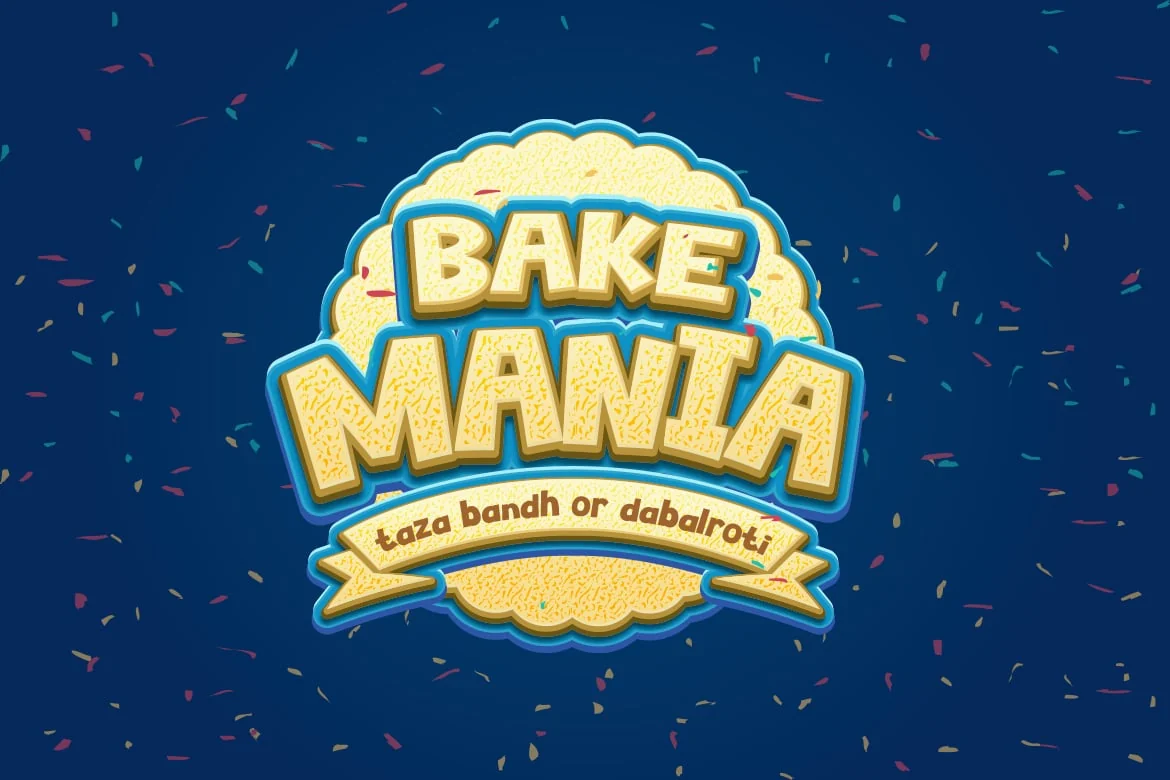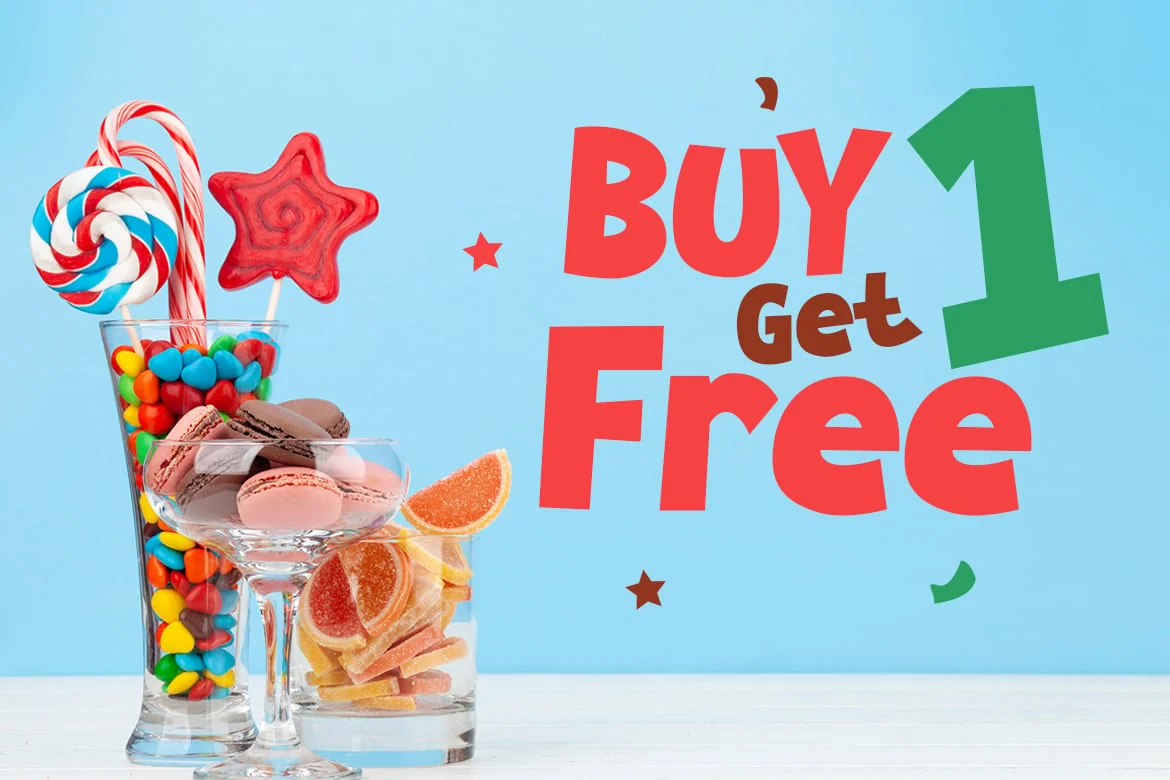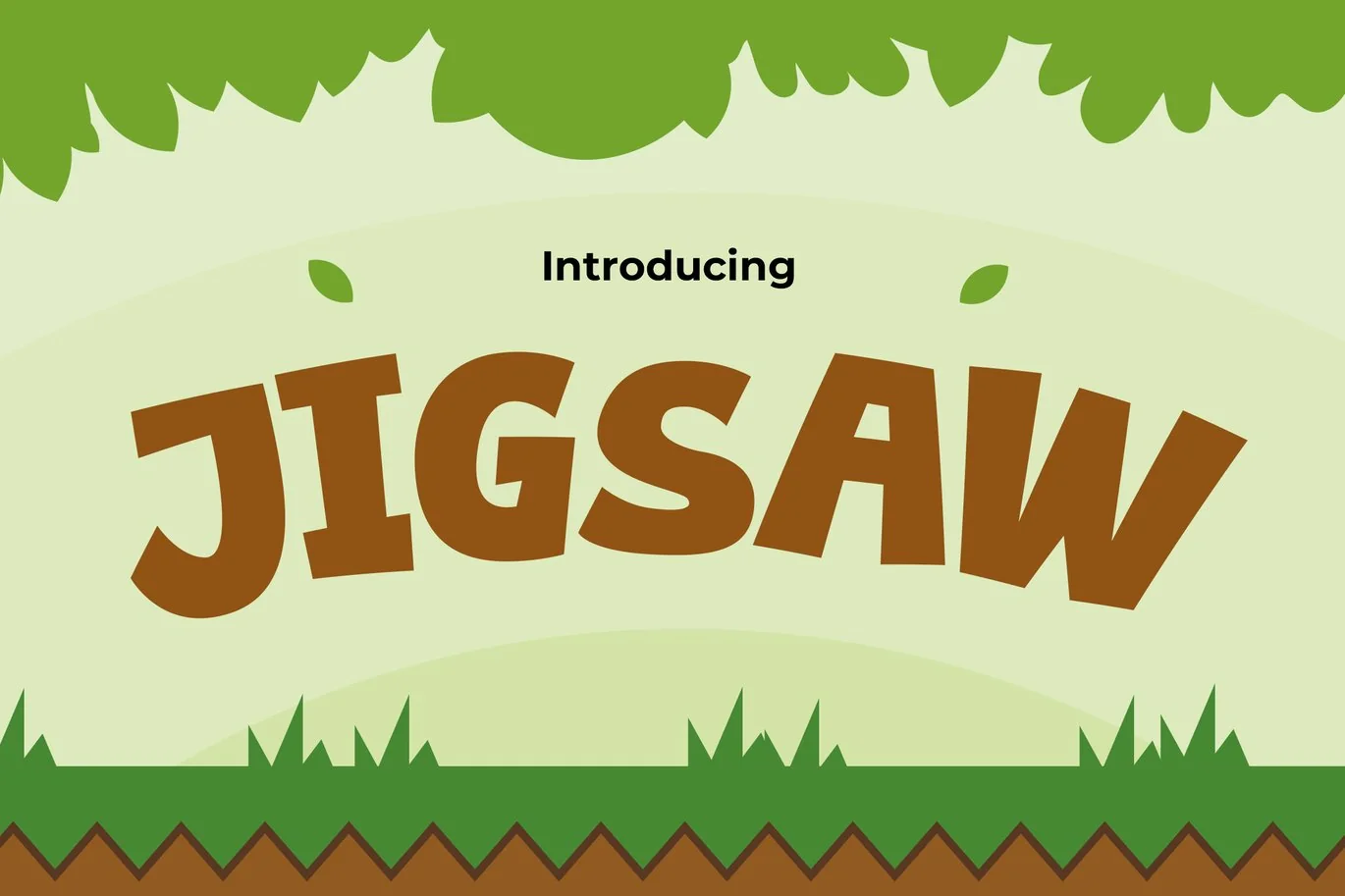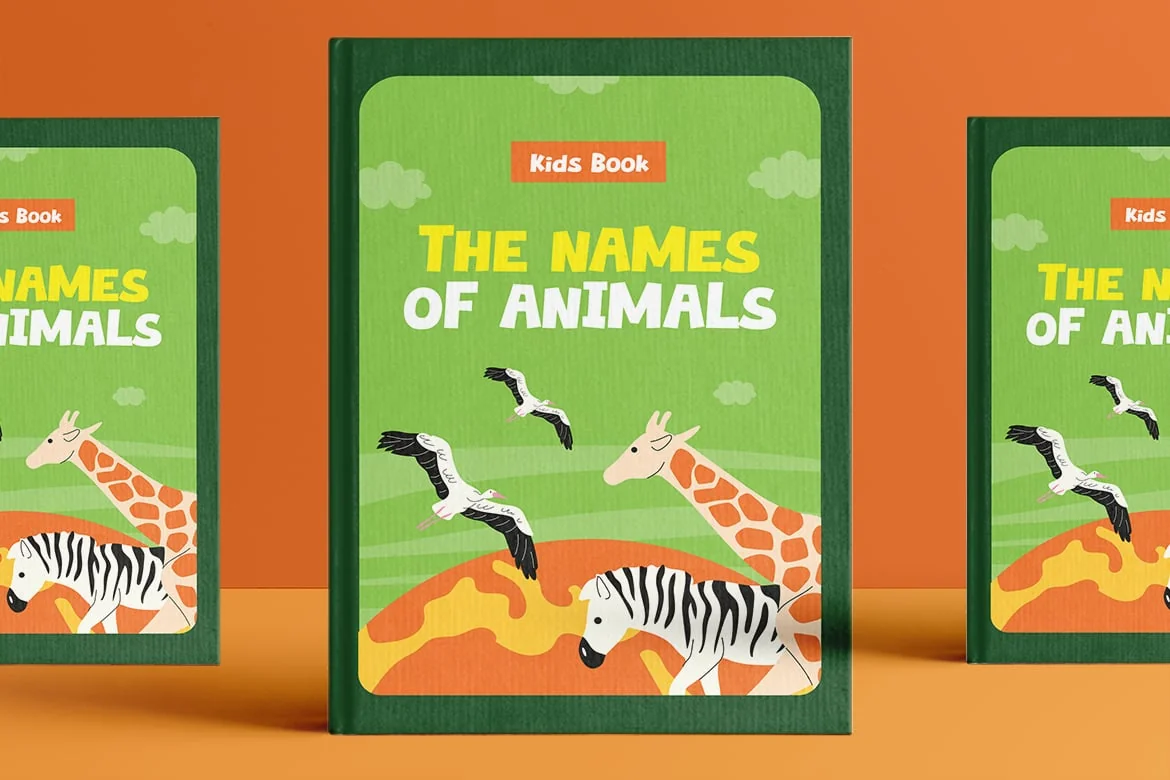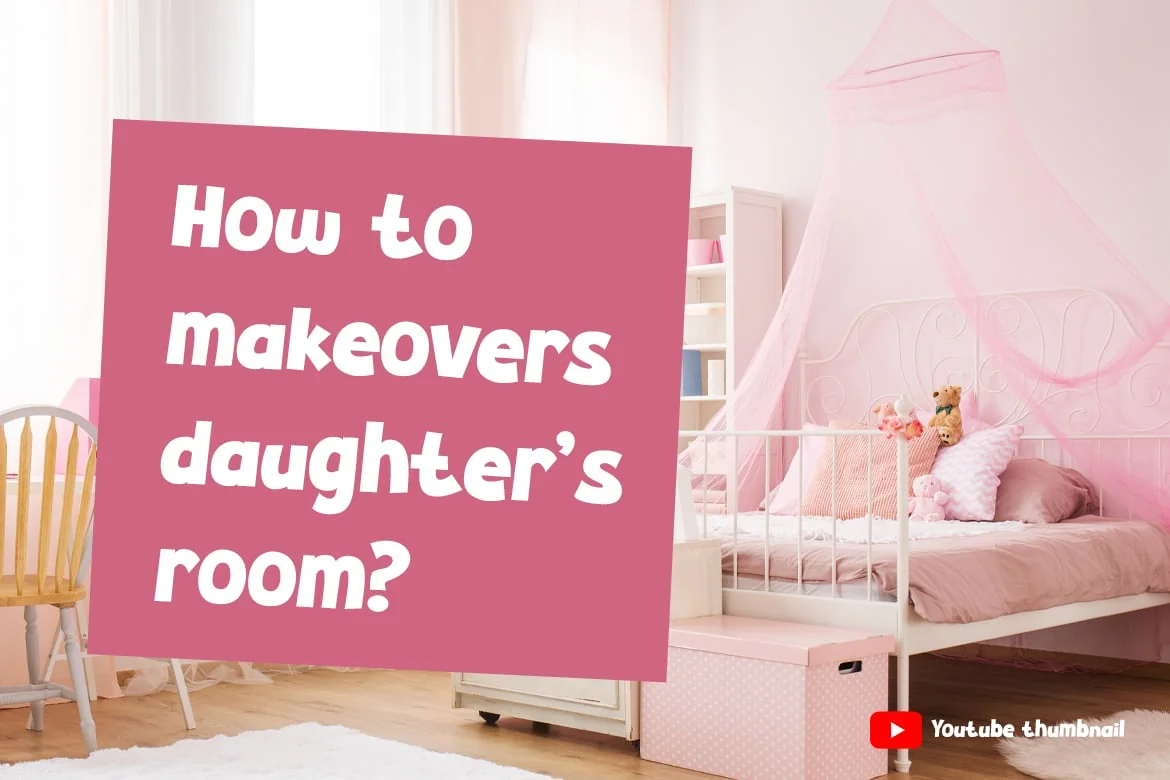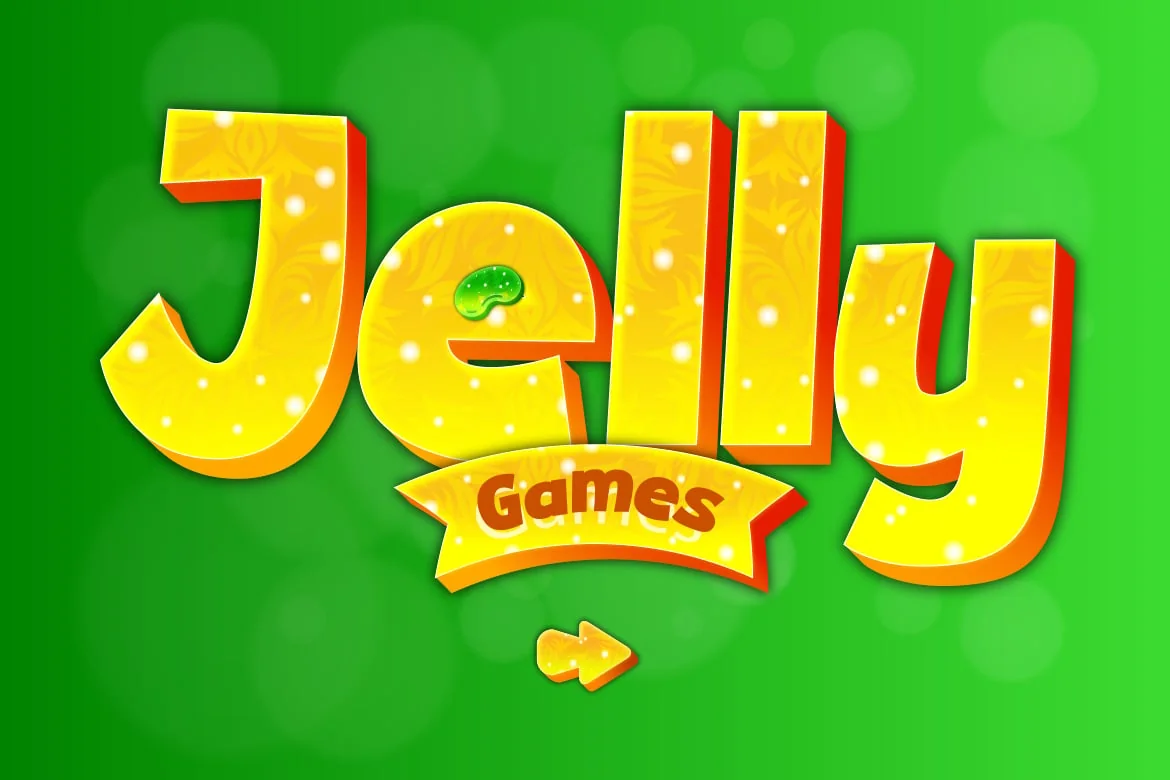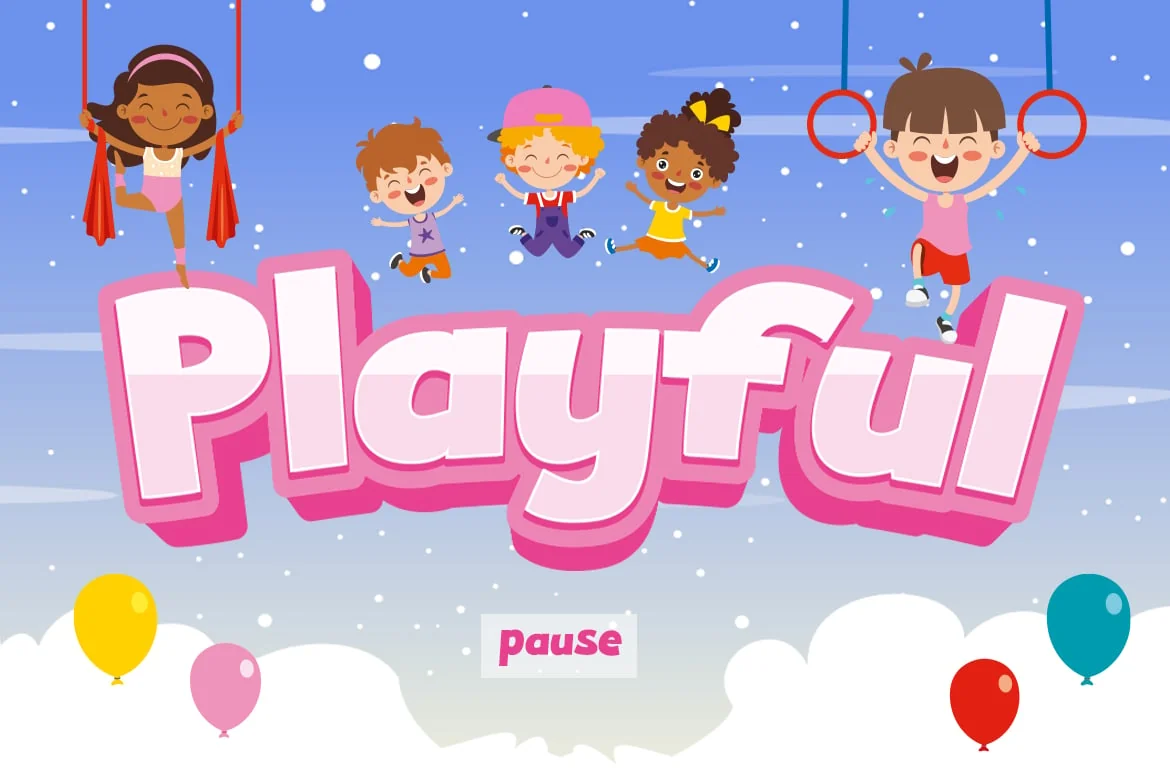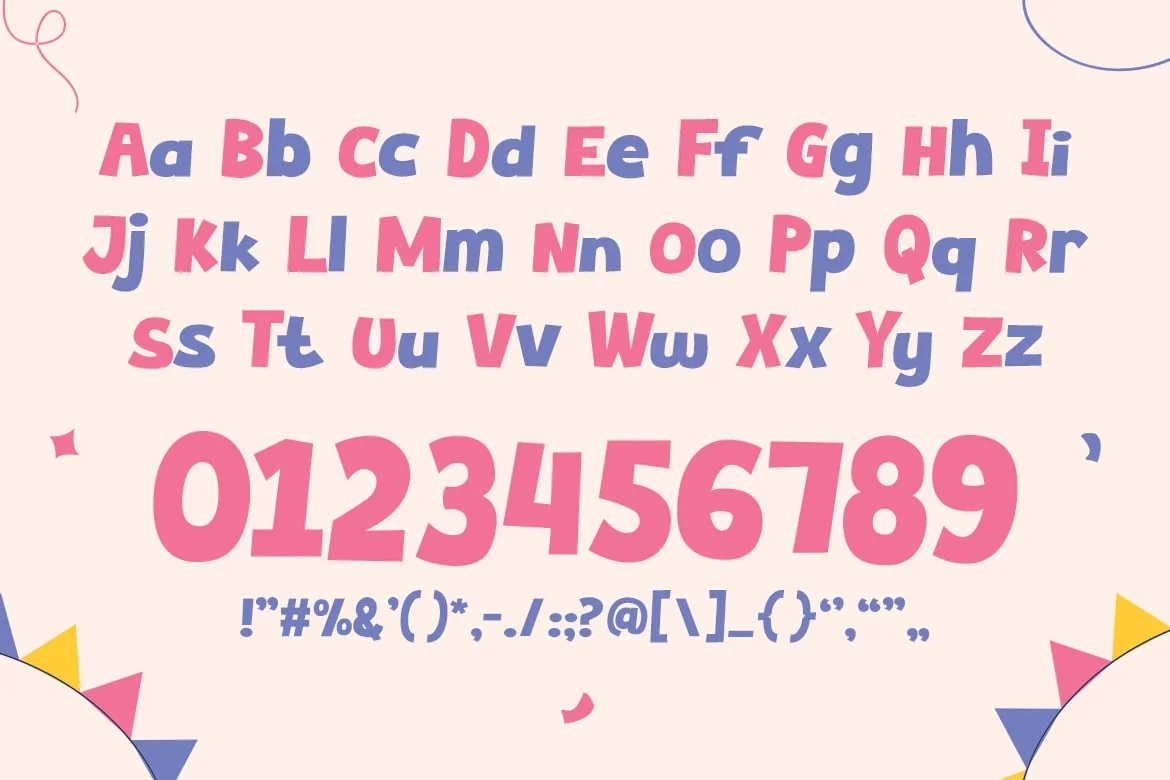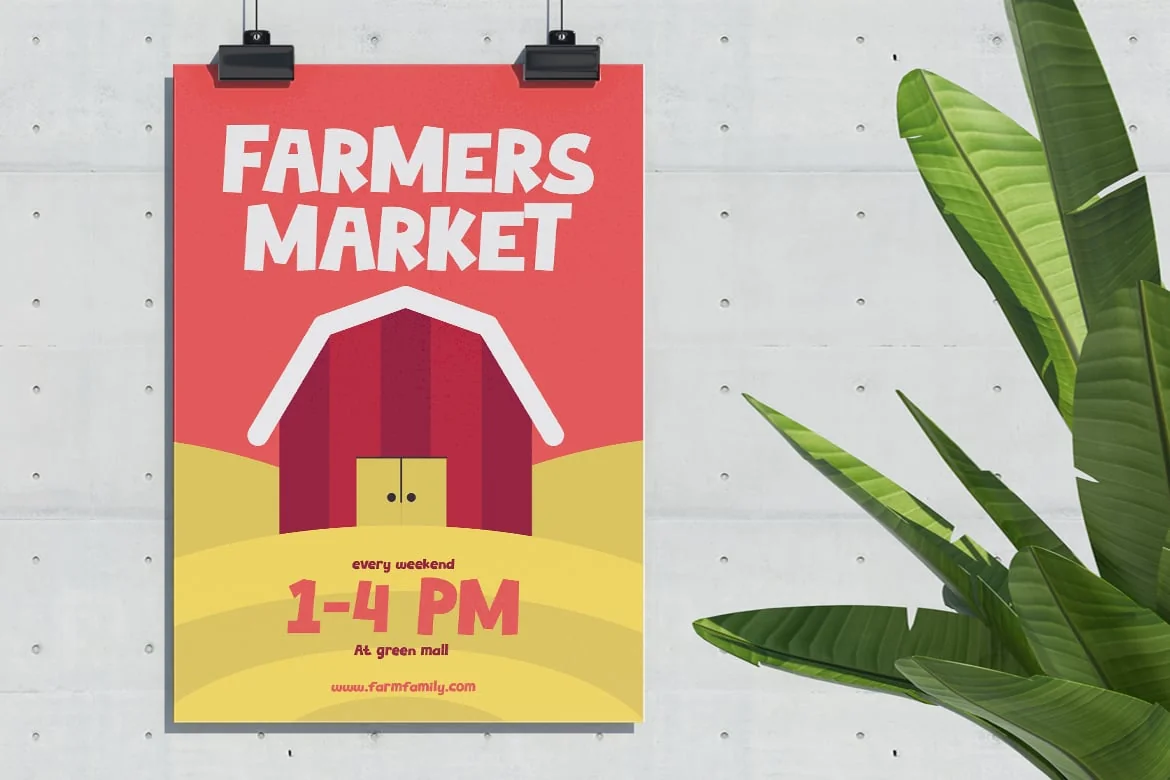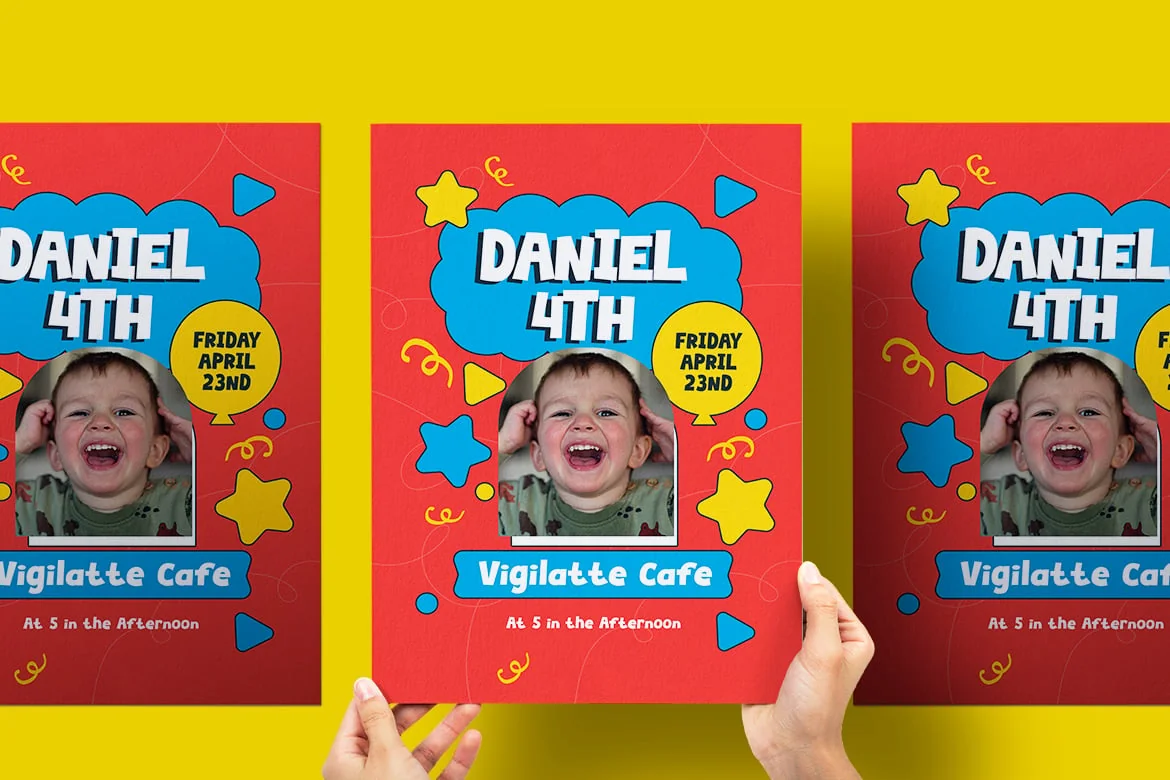
Cartoon Font – Jigsaw
Jigsaw – Funny Font Adventure for Kids
Introducing “Jigsaw,” the delightful font that adds a playful twist to any kids’ project. With its whimsical shapes and cheerful demeanor, “Jigsaw” is designed to bring smiles and laughter to children of all ages. Whether you’re crafting birthday cards, educational materials, or playful posters, this font infuses a sense of fun and joy into every letter. Each character is meticulously crafted to resemble puzzle pieces, adding an extra layer of charm and creativity to your designs. Let “Jigsaw” be your tool for sparking imagination and spreading happiness in all your kids’ projects.
Step into a world of laughter and creativity with “Jigsaw,” the font that turns every design into a delightful puzzle of fun. Inspired by the playful nature of childhood, “Jigsaw” captures the essence of innocence and imagination. Perfect for games, storybooks, and playful branding, this font brings characters to life with its quirky shapes and whimsical style. From silly slogans to comical captions, “Jigsaw” adds a touch of humor and charm that kids adore. Embrace the playful spirit of youth and let “Jigsaw” be your partner in crafting memorable experiences that bring joy to kids everywhere